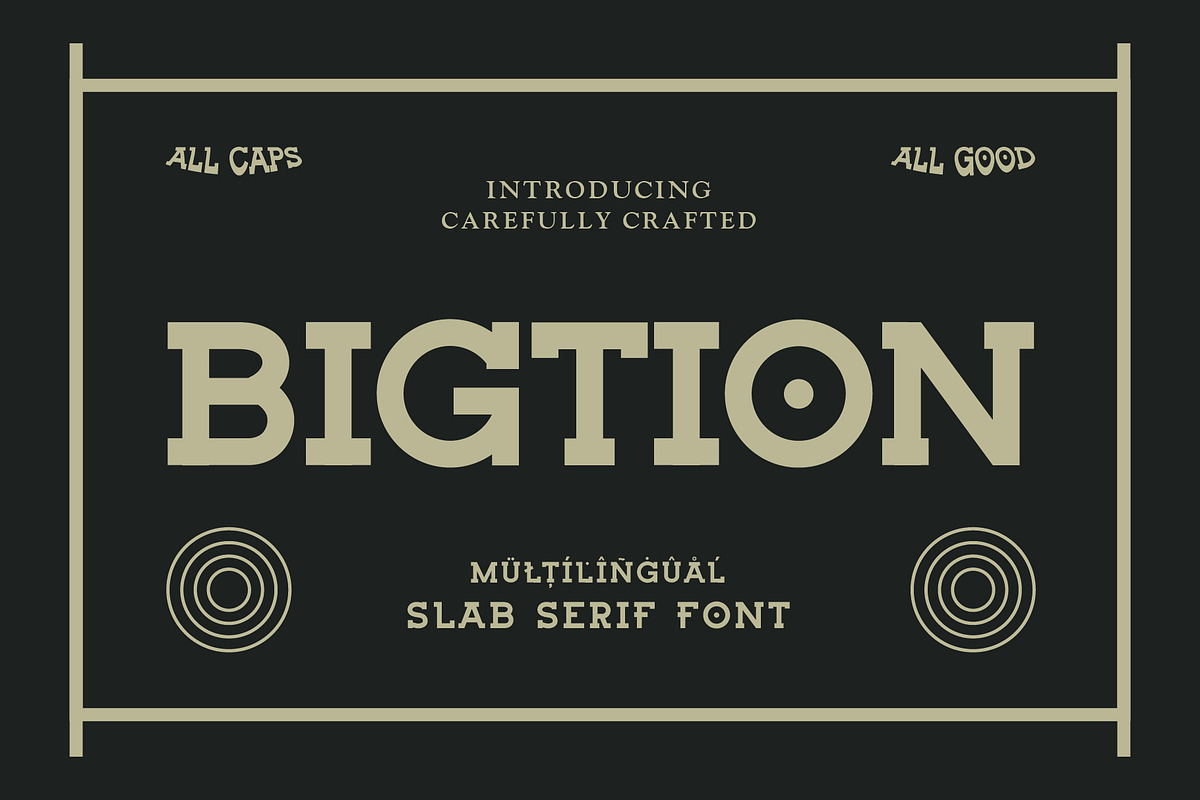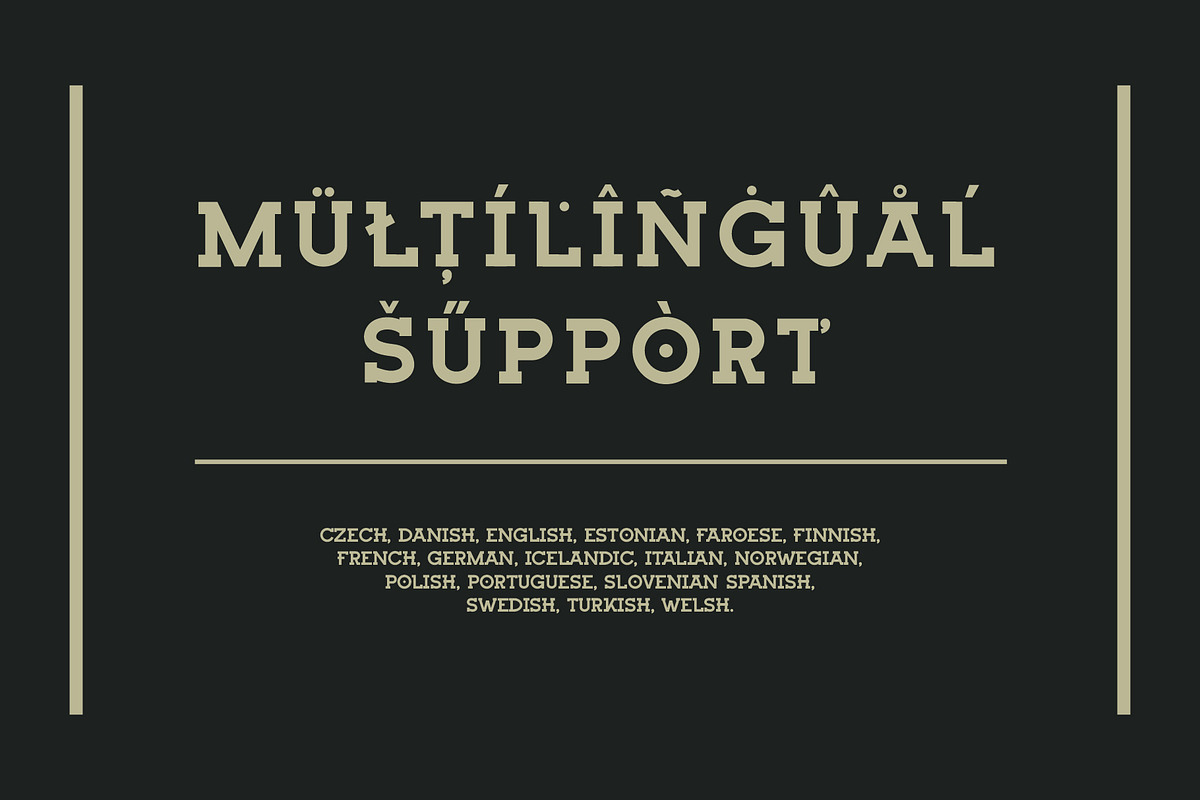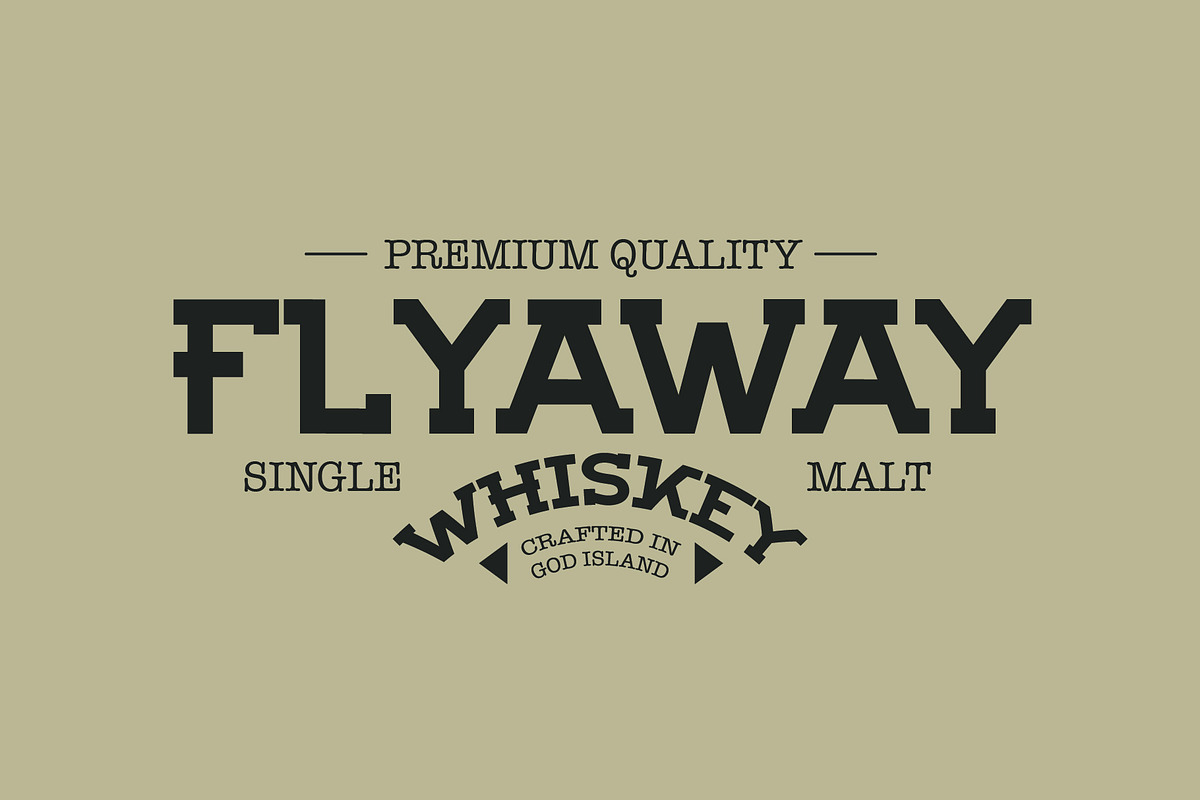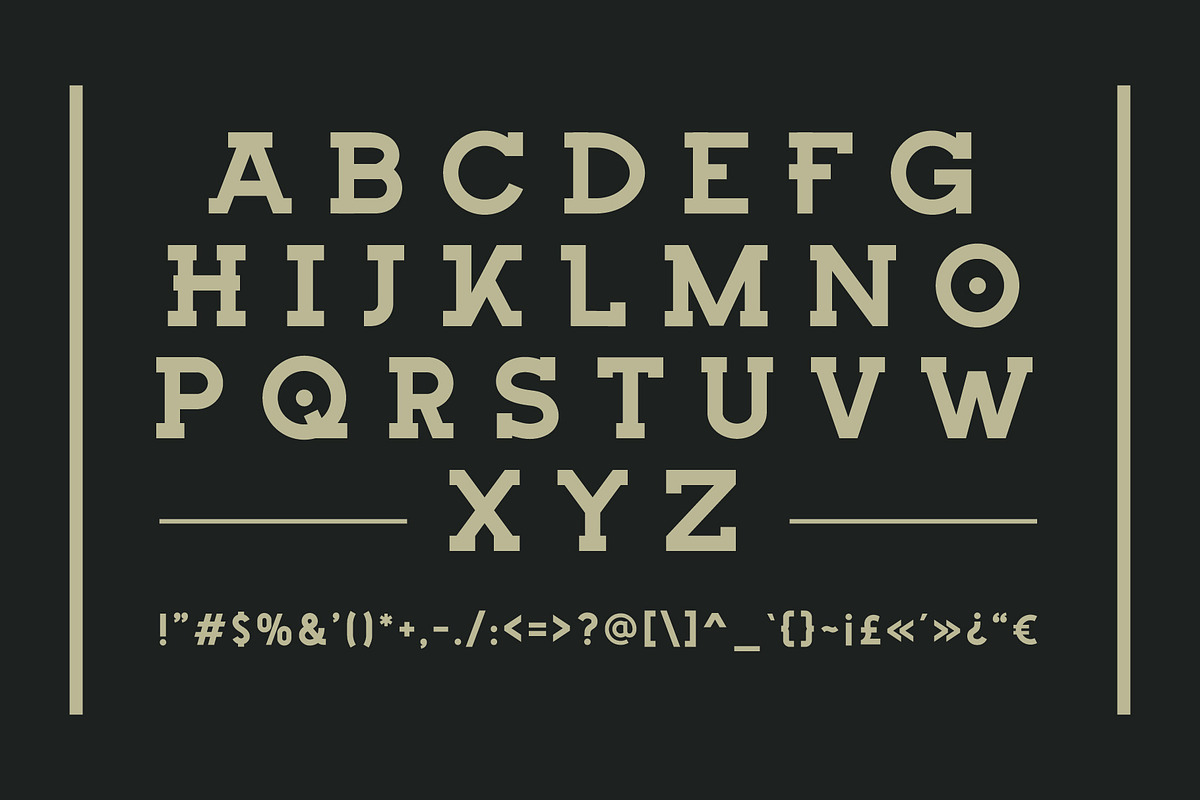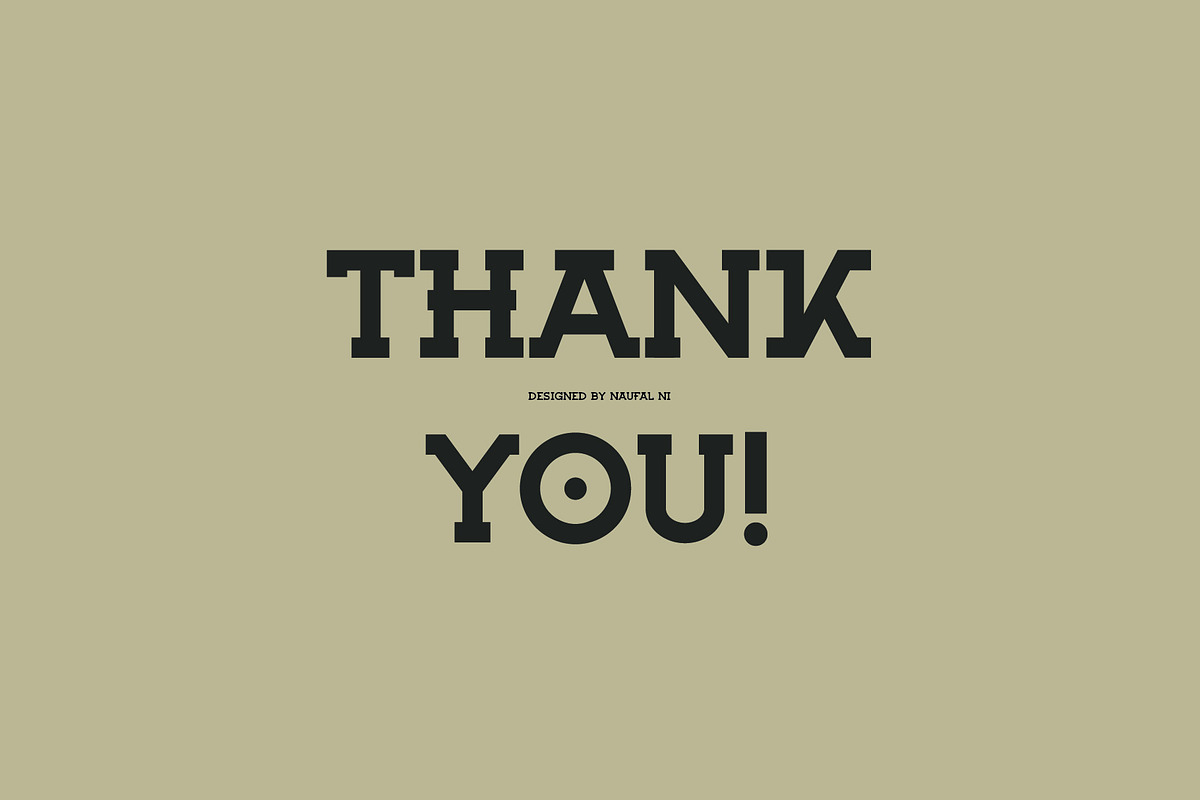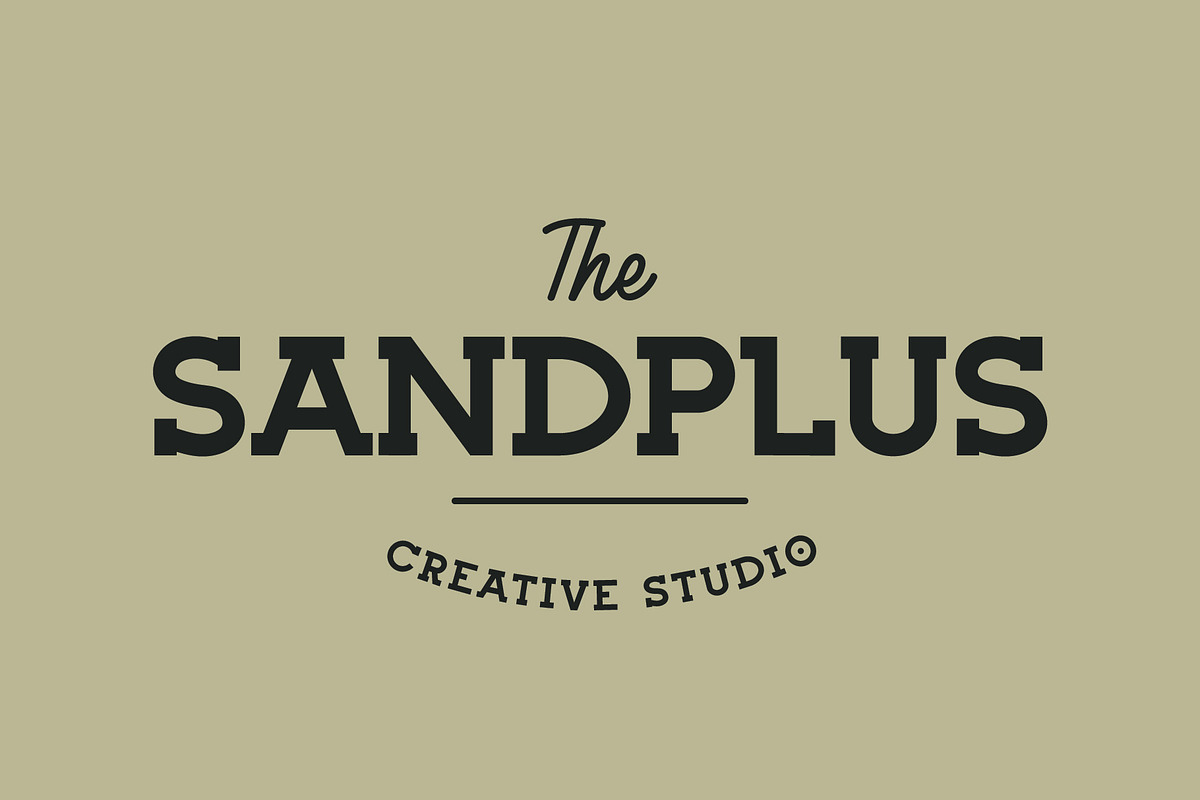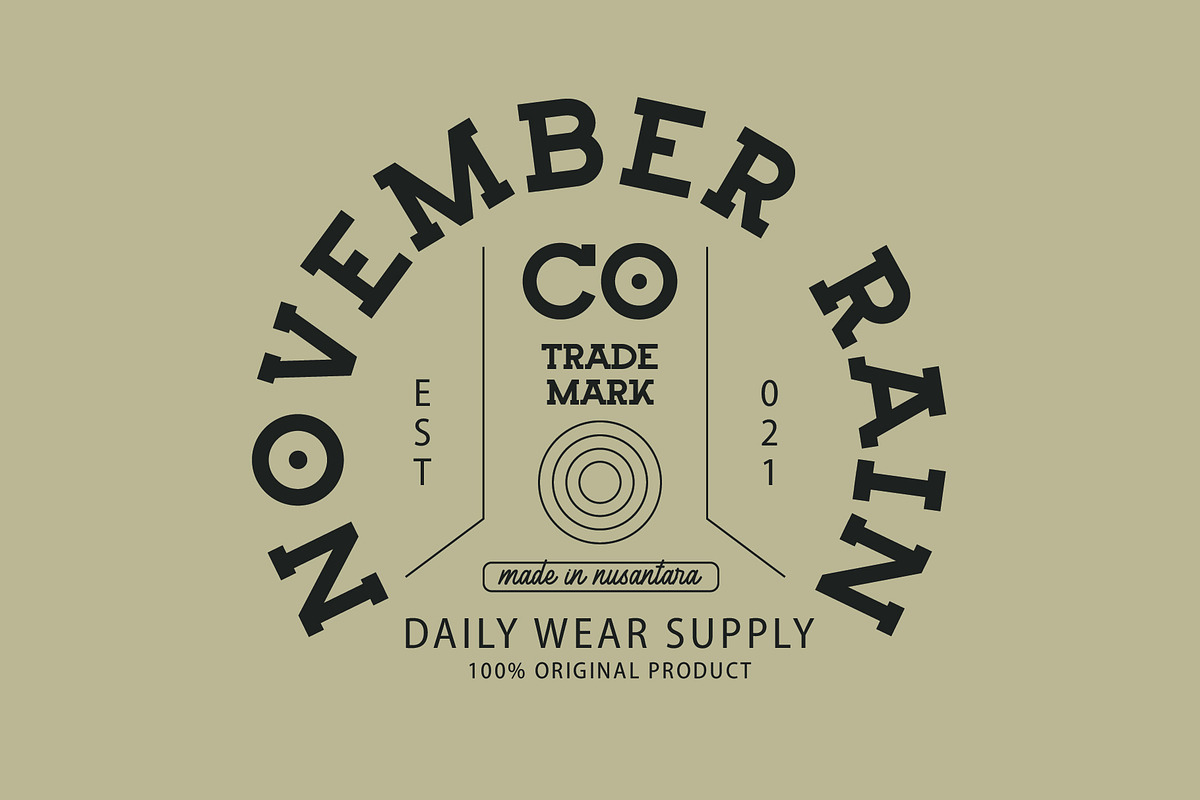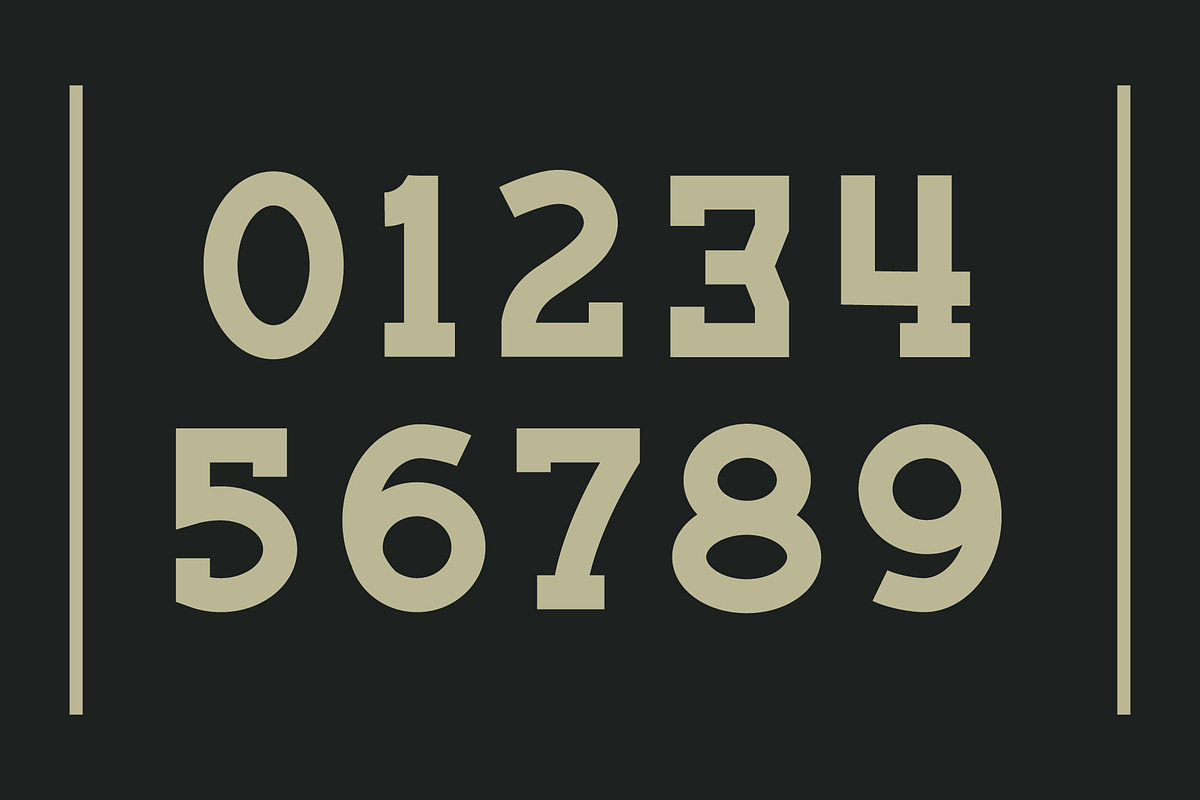
BIGTION
BIGTION is a slab serif font, bold and has a high level of legibility, and is suitable in various media, for packaging design logos, posters, etc. This font already supports multilingual.
Multilingual Support: Czech, Danish, English, Estonian, Faroese, Finnish, French, German, Icelandic, Italian, Norwegian, Polish, Portuguese, Slovenian Spanish, Swedish, Turkish, Welsh.